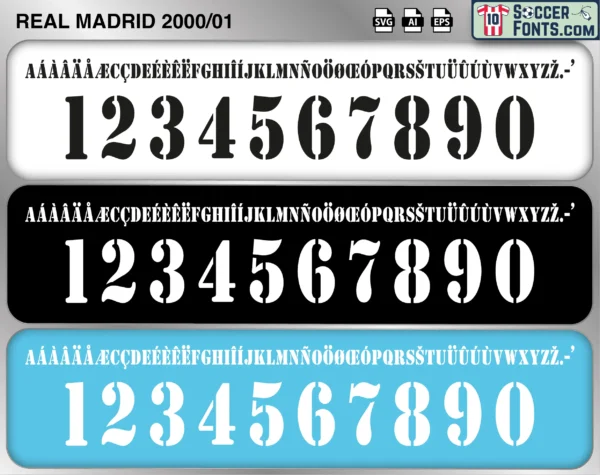
Real Madrid 2000-01 Font
The Real Madrid 2000-01 font is an editable soccer jersey lettering design in vector format inspired by the Real Madrid kit style used during the 2000-01 football season. This football font artwork is prepared for football shirt recreations, custom jersey projects, football kit mockups and sports graphic design workflows.
The Real Madrid 2000-01 font became associated with a season in which the club reclaimed the La Liga title and strengthened its position as one of the leading forces in world football. Raúl enjoyed one of the finest seasons of his career, finishing among the team’s most influential players and helping Real Madrid secure the Spanish championship. The club also reached the semi-finals of the UEFA Champions League, continuing a period of sustained European competitiveness that would define the early years of the decade. Real Madrid shirts from the 2000-01 season remain highly sought after among football shirt collectors and supporters because of their connection to the arrival of Figo, the rise of the Galácticos era and another league-winning campaign. The Real Madrid 2000-01 font reflects a pivotal season that helped shape one of the most famous periods in the club’s modern history.